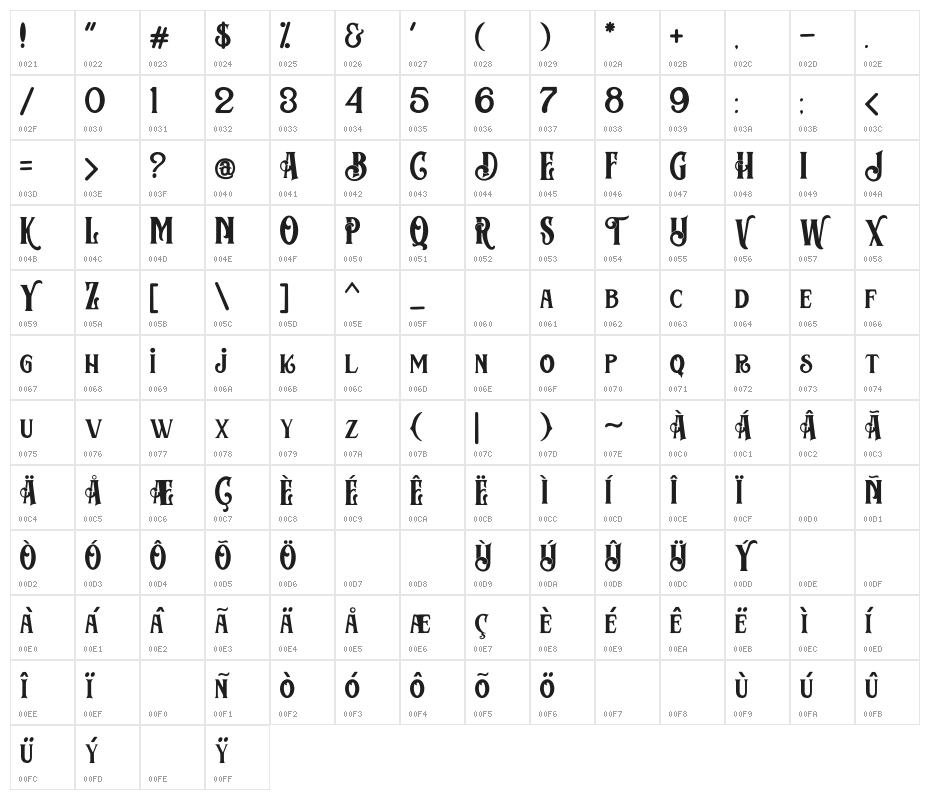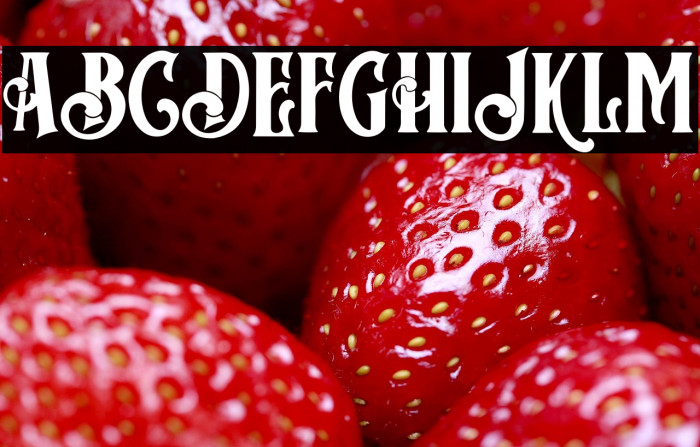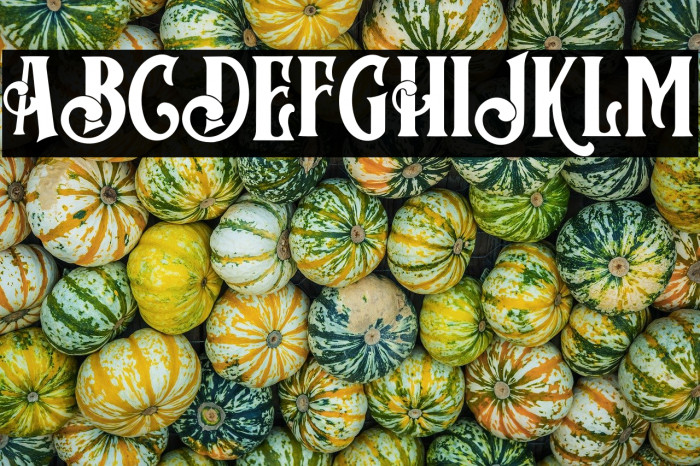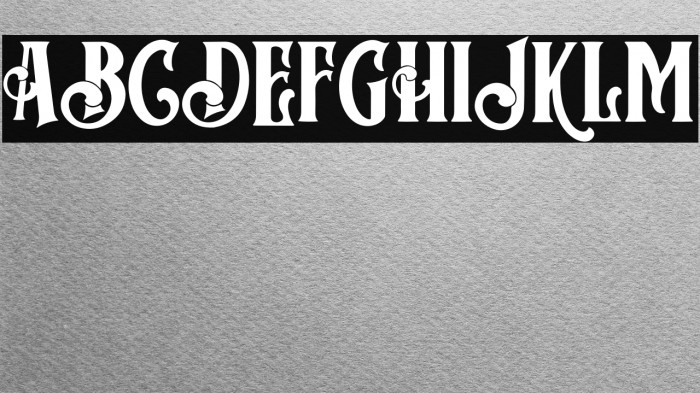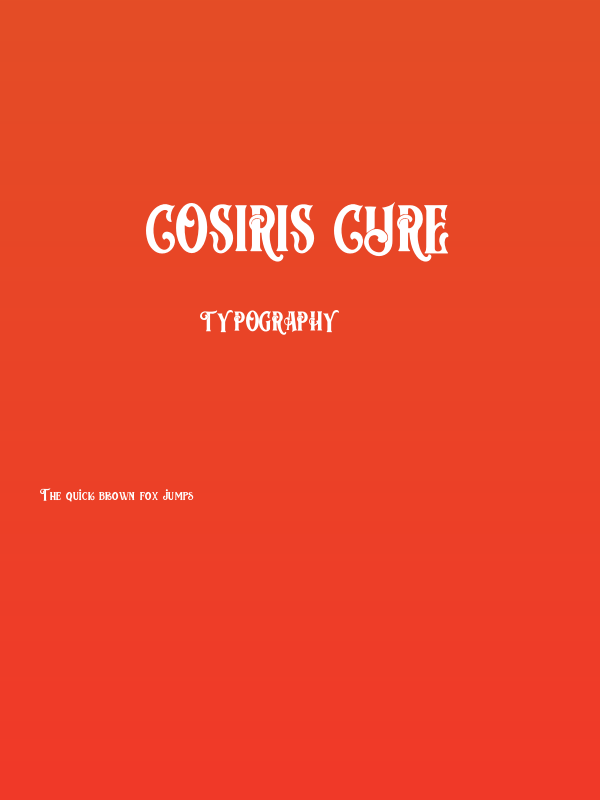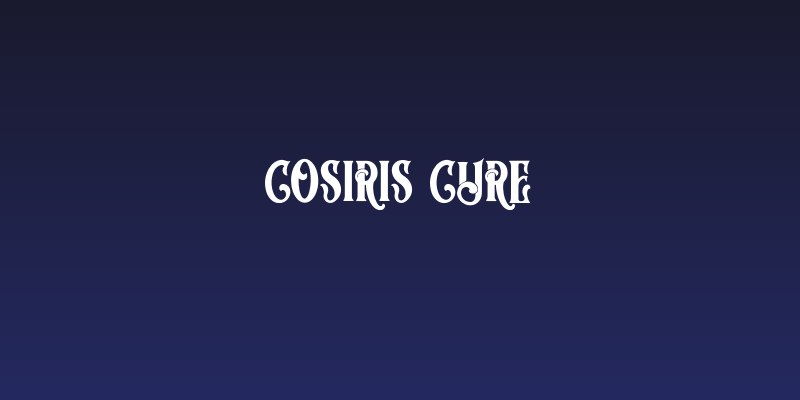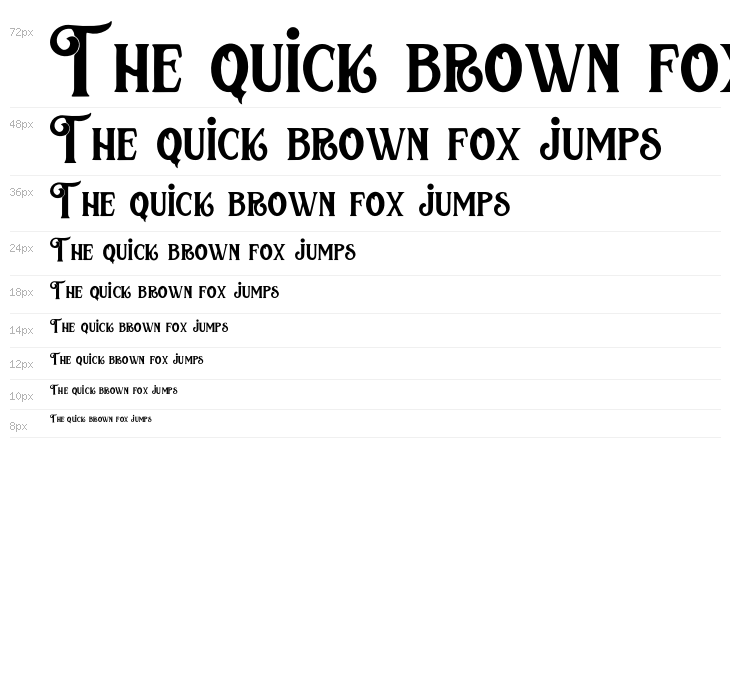
Cosiris cure Font
Cosiris cure Description
This font features a bold and decorative style with intricate swirls and flourishes that add a unique flair to each character. The uppercase letters are particularly ornate, with some characters incorporating elegant loops and curls. The lowercase letters maintain a more straightforward design but still carry a sense of sophistication. The numbers and special characters follow the same decorative theme, making the font cohesive and visually appealing. This font is ideal for projects that require a touch of elegance and creativity, such as invitations, posters, or branding materials.
| Proposed Projects | Ideal for invitations, posters, branding materials, and creative designs. |